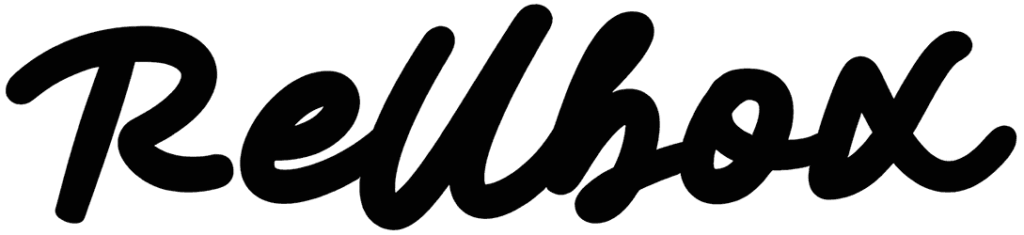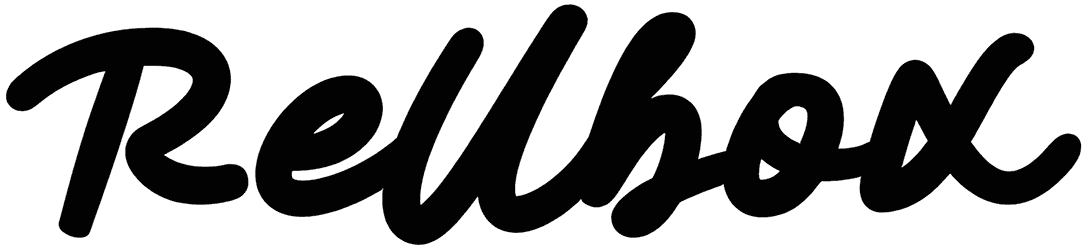
Rellbox Font
Rellbox can transport the audience to another time and create a sense of authenticity that is difficult to replicate with digital letters. With its fluid lines and imperfect curves, this handwritten font imbues the text with a personality not found in standard fonts.
In today’s digital age, you can provide a pleasant opportunity to get away from the hustle and bustle of modern life with this script font. Even without numbers, it will completely satisfy your needs in poster, packaging, and t-shirt design.